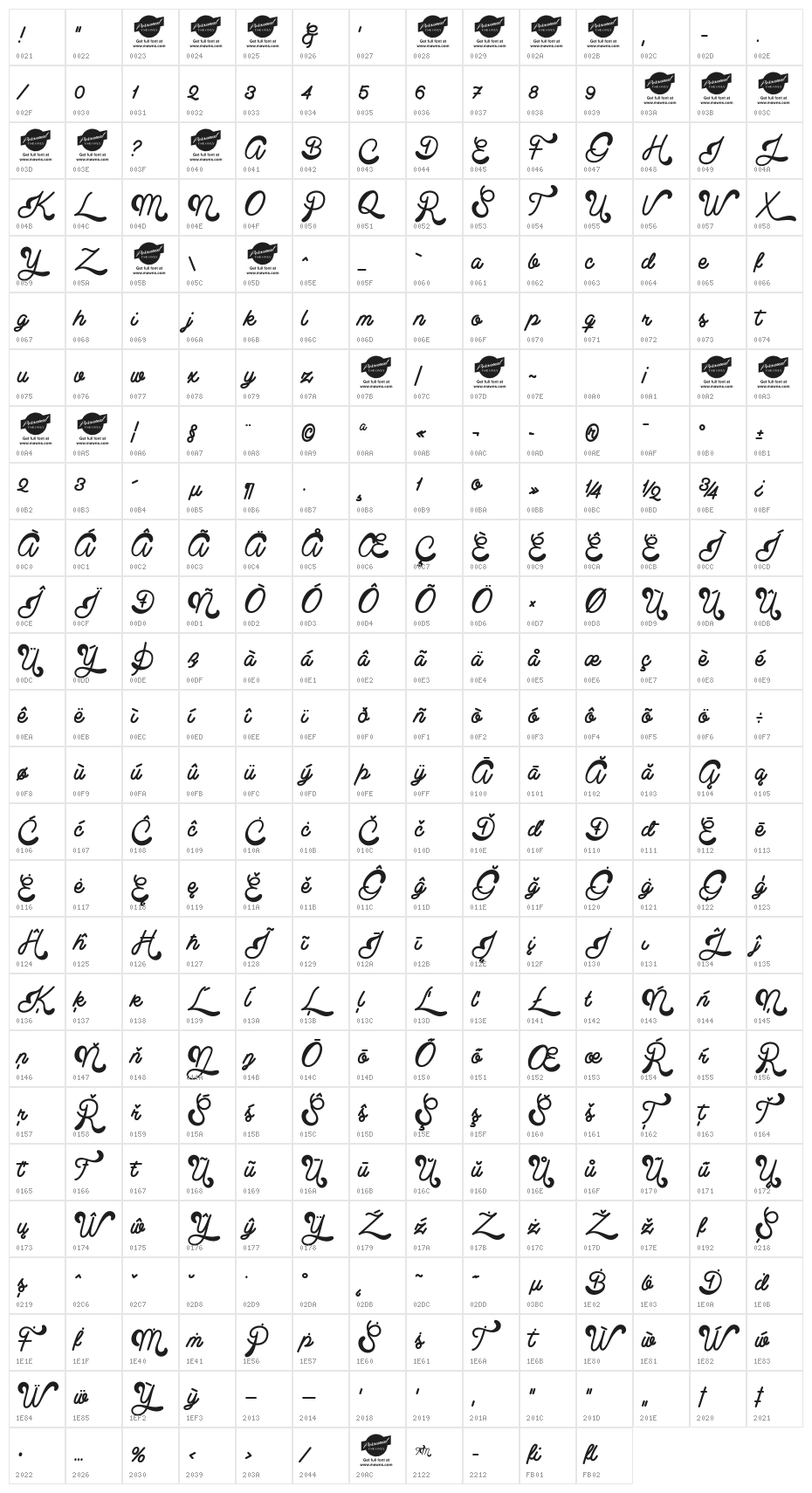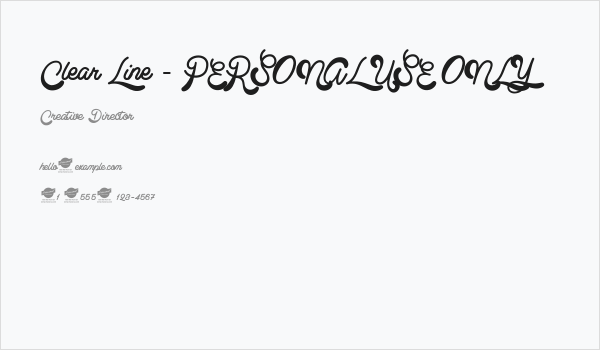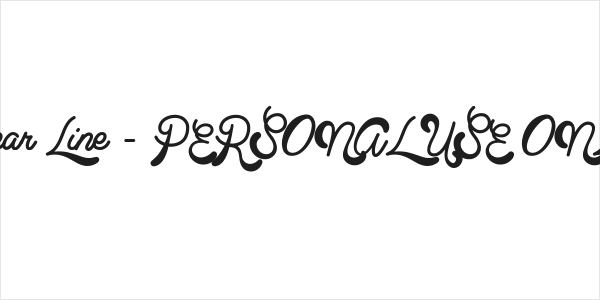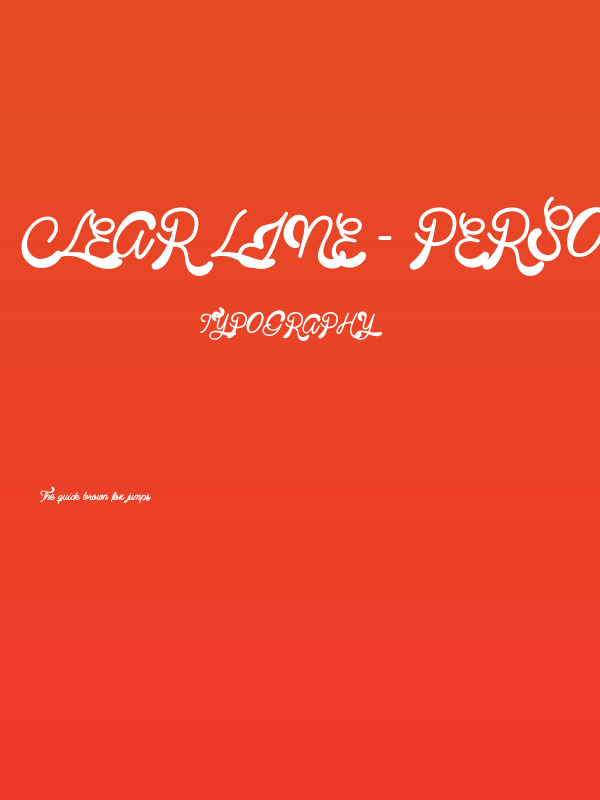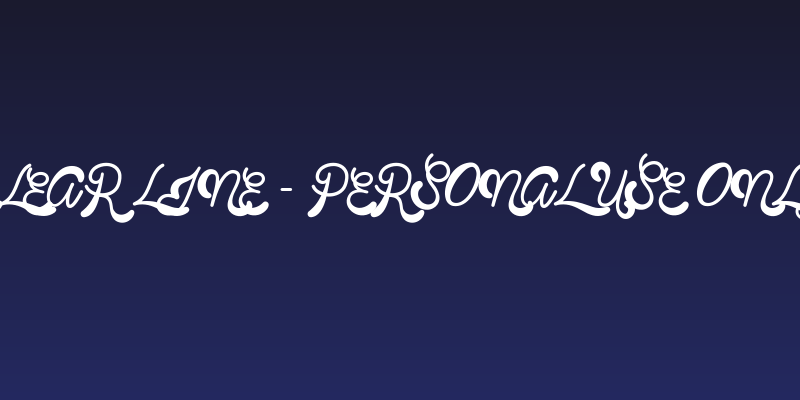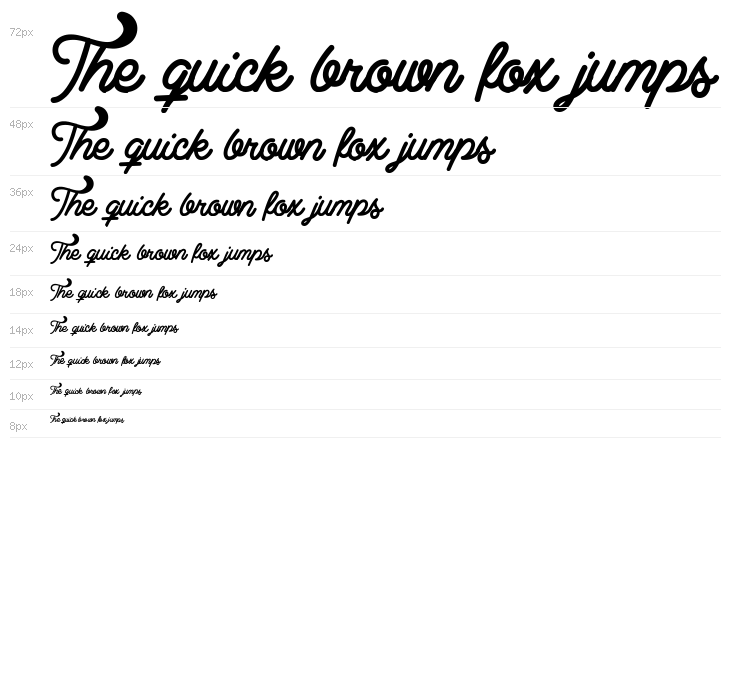
Clear Line - PERSONAL USE ONLY Font
Clear Line - PERSONAL USE ONLY Description
This font features a flowing, cursive style with elegant loops and swirls, giving it a sophisticated and artistic appearance. The uppercase letters are particularly ornate, with intricate connections between strokes, while the lowercase letters maintain a more consistent flow, enhancing readability. The numbers and special characters are designed to complement the overall script style, maintaining the same fluidity and grace. This font is ideal for projects that require a touch of elegance and creativity, such as invitations, greeting cards, or branding materials.
| Overall Style | Elegant, Artistic |
| Use Case | Headlines, Decorative text |
| Proposed Projects | Invitations, greeting cards, branding materials, artistic designs. |